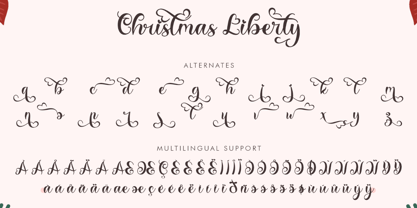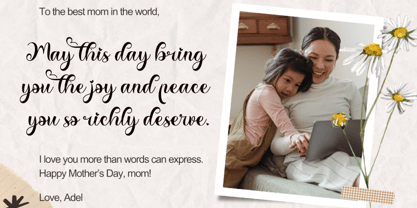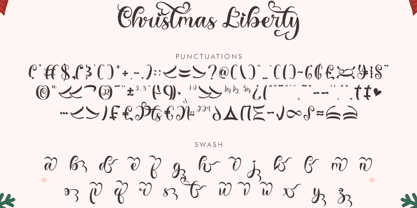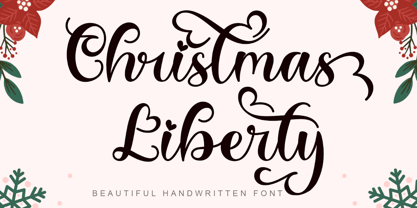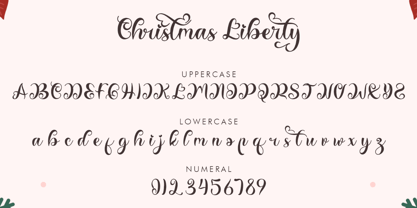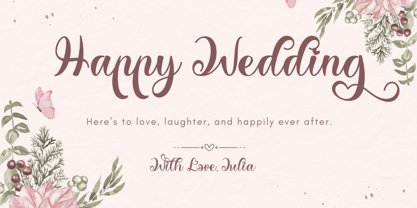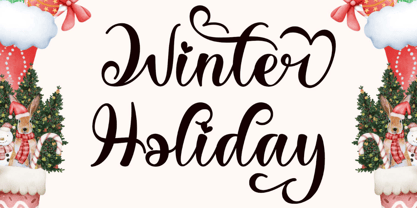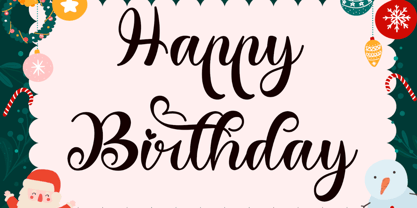
Christmas Liberty
by Yoga Letter
The Christmas Liberty Font Family was designed by Isroni Yoga Prasetya and published by Yoga Letter. Christmas Liberty contains 1 styles. More about this family
"Christmas Liberty" is a unique and beautiful handwritten font. It features uppercase and lowercase letters, numerals, punctuations, swashes, alternates, and multilingual support. It's perfect for banners, posters, prints, branding, stickers, logos, Christmas invitations, weddings, and more.
Designers: Isroni Yoga Prasetya
Foundry: Yoga Letter